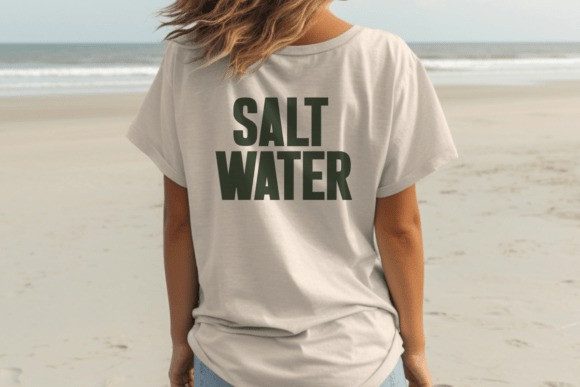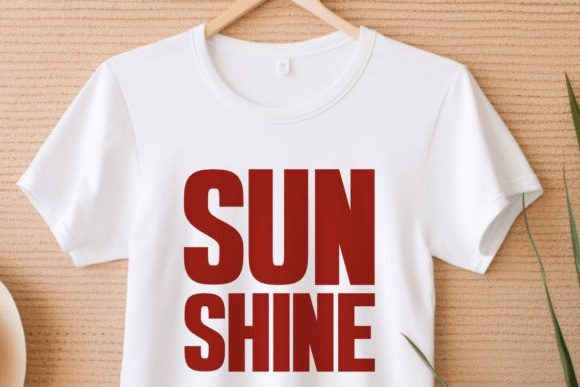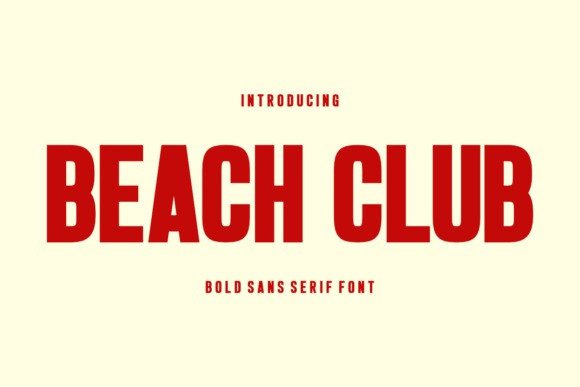
Beach Club Font
Beach Club Font is a bold, condensed sans-serif font with a stunning vintage feel.It’s perfect for logos, t-shirts, mugs, invitations, greeting cards, branding, posters, packaging, signs, cutting boards, printables, crafting, and other designs.
Whatever your creative needs are, Beach Club is the perfect choice for a modern yet simple design!